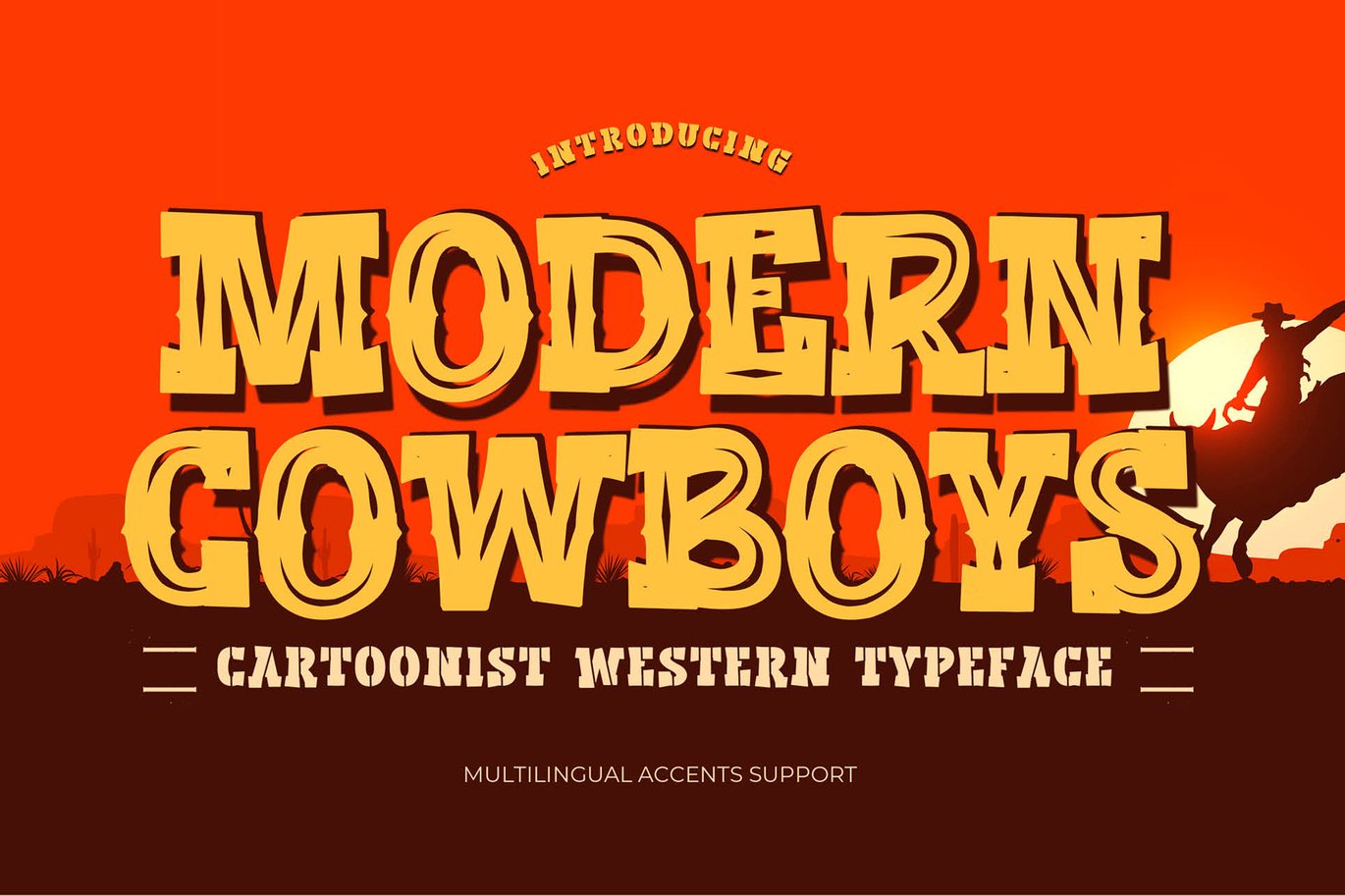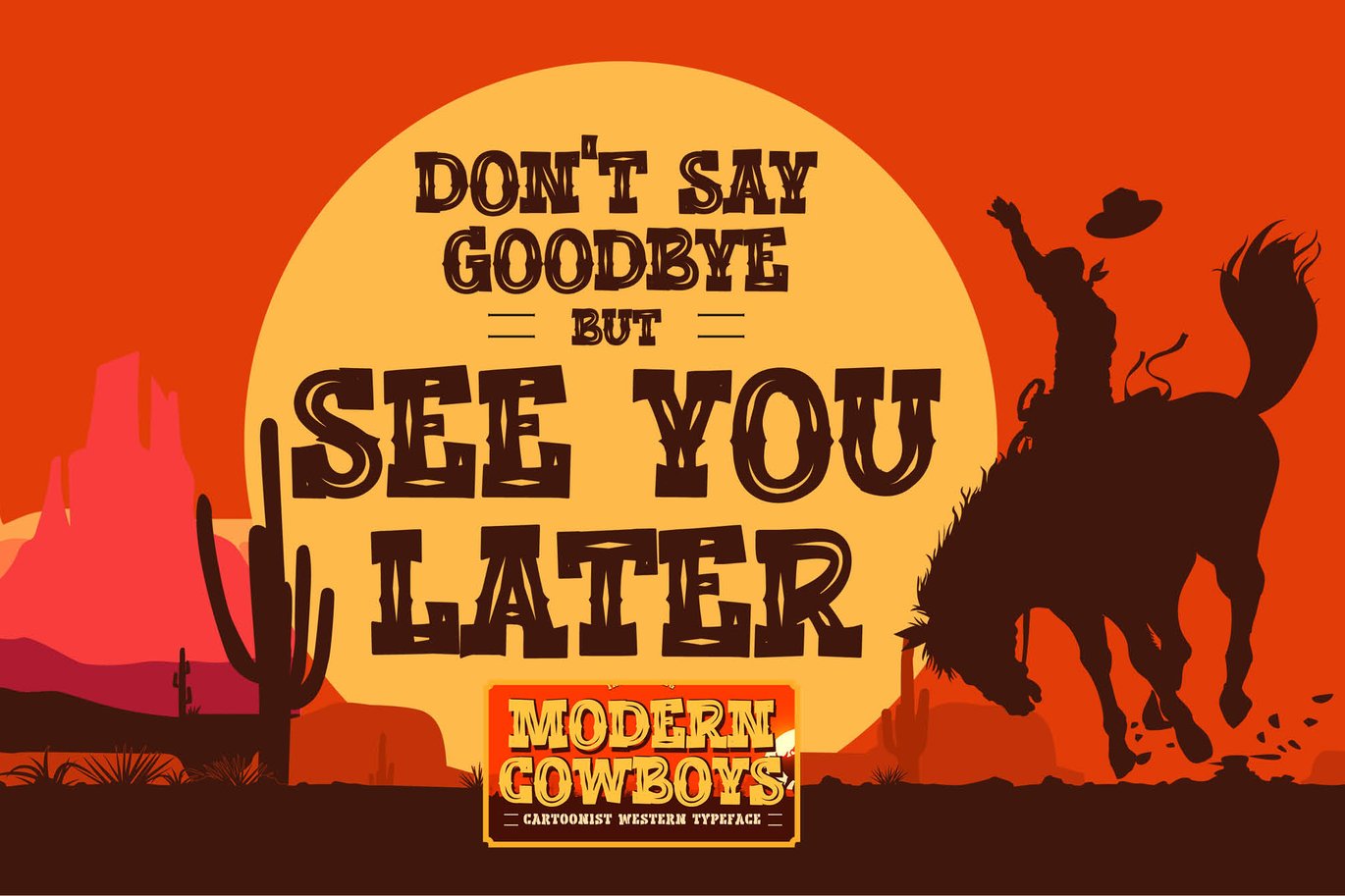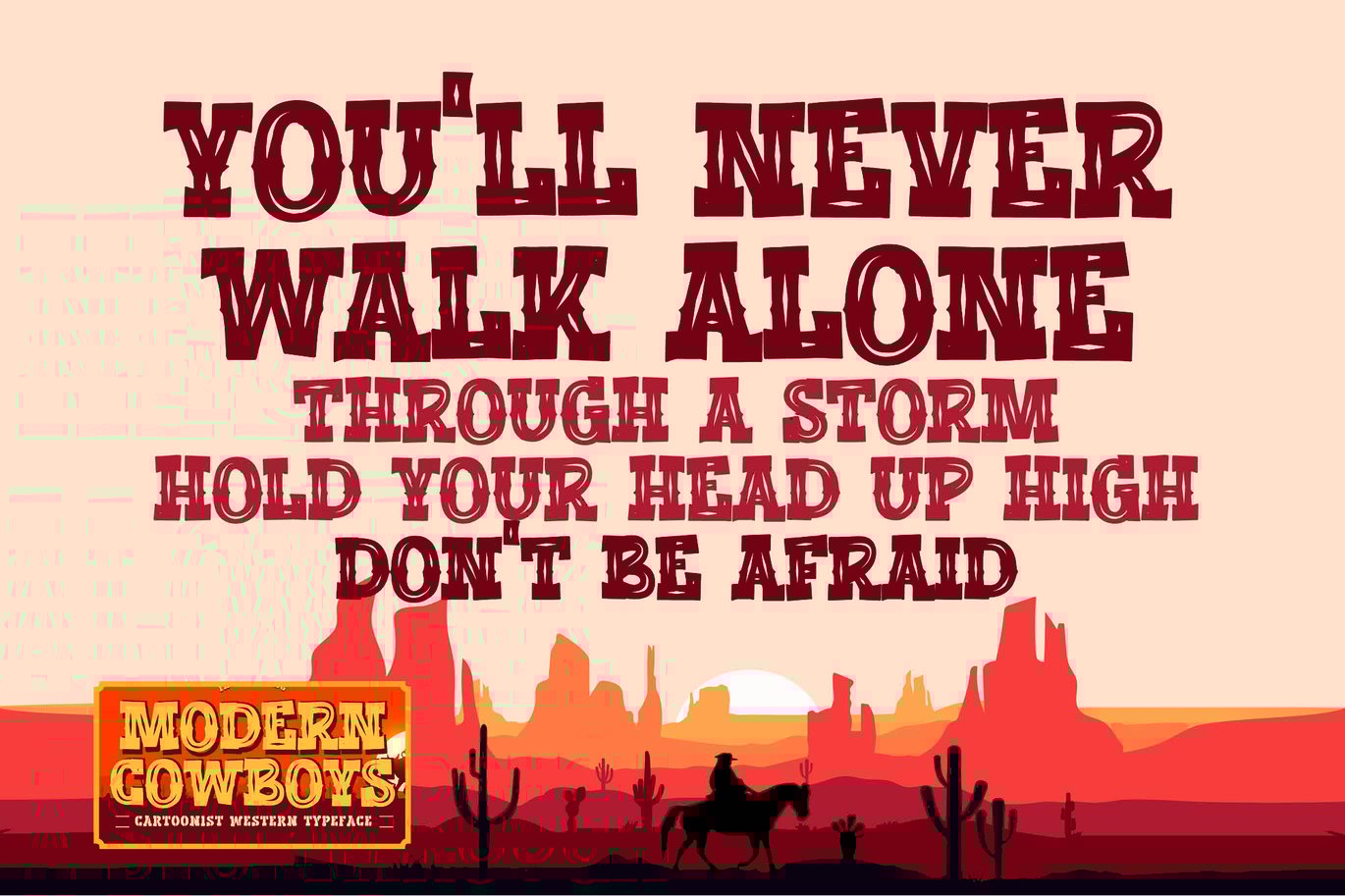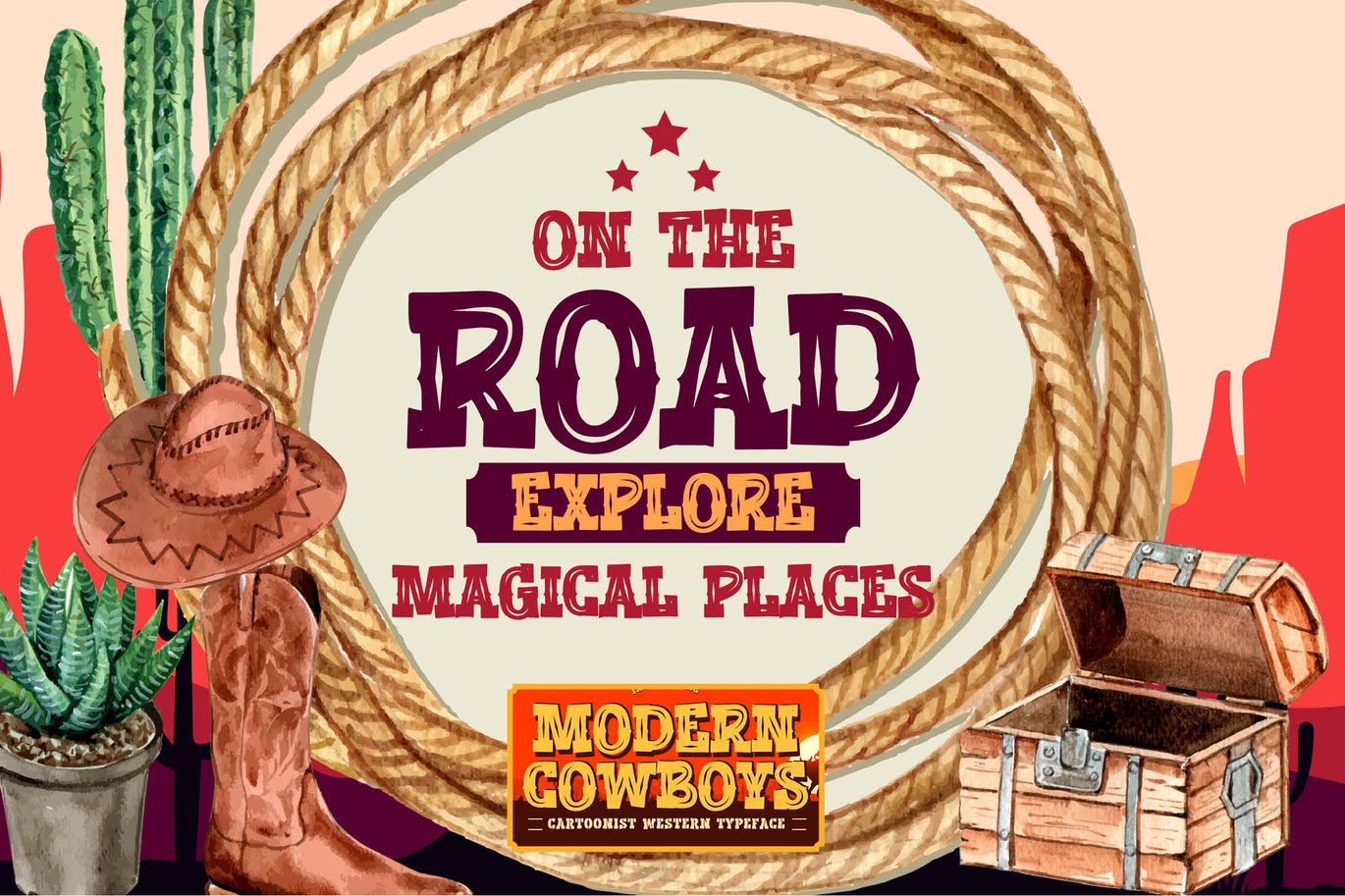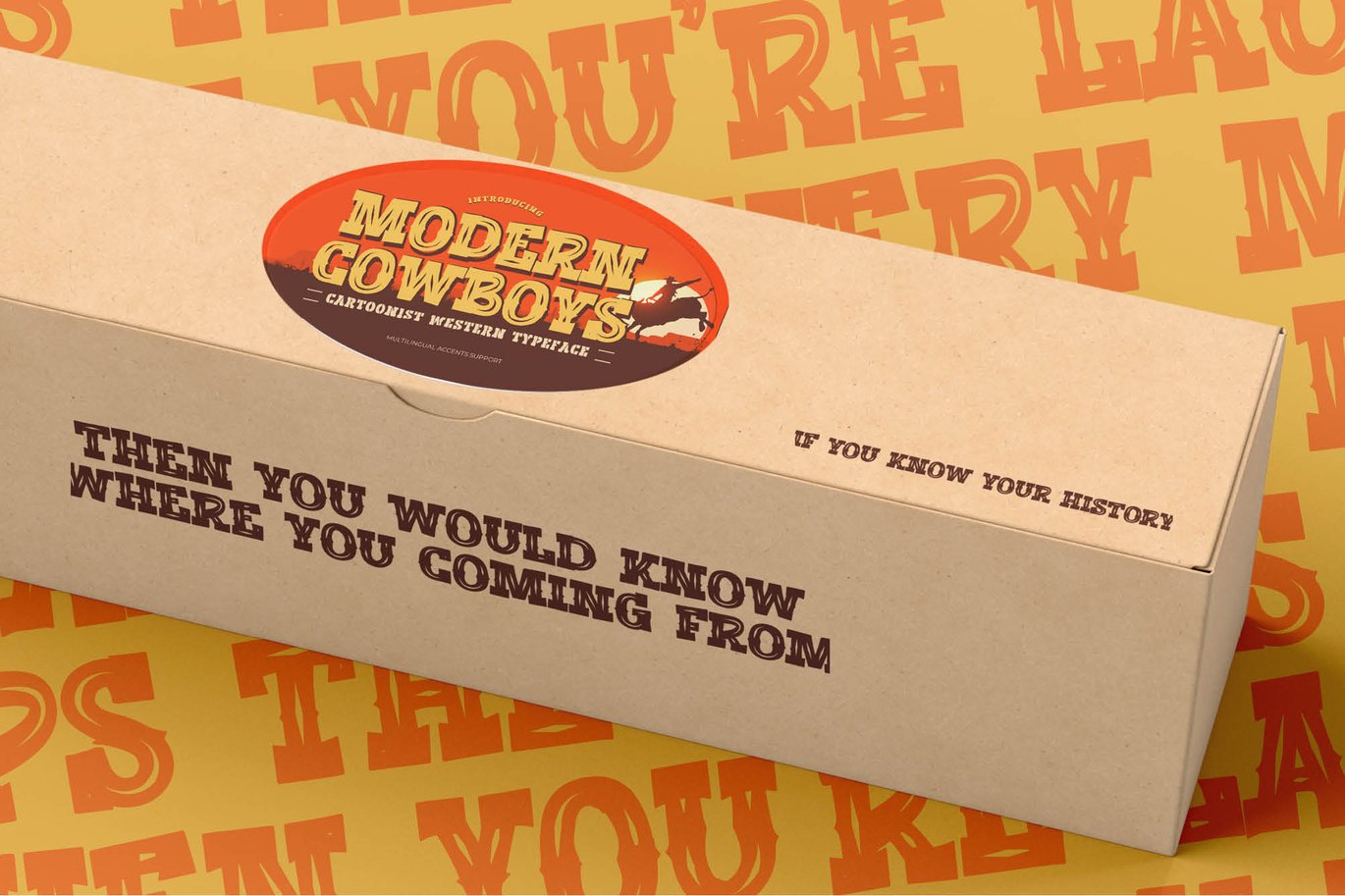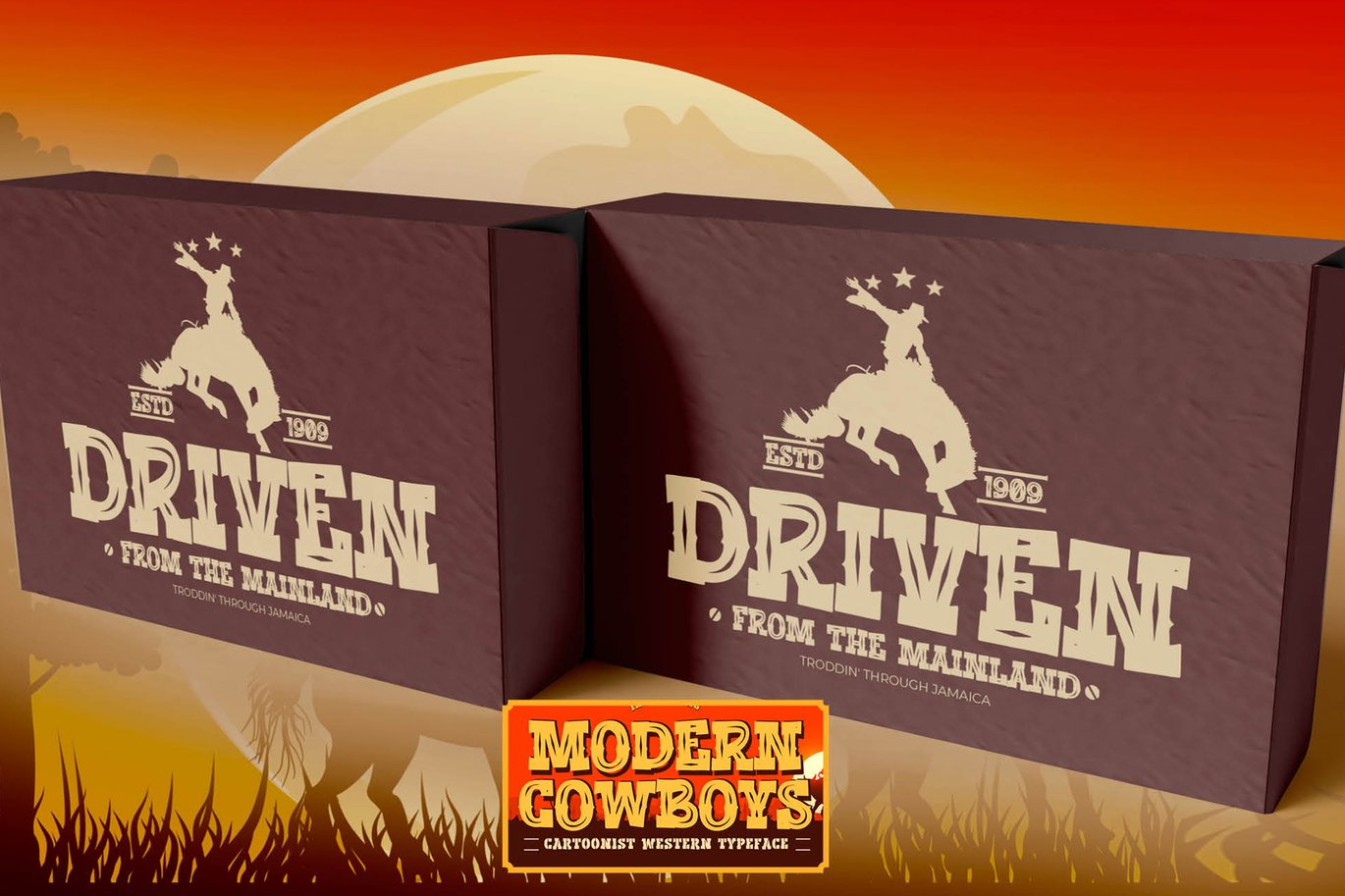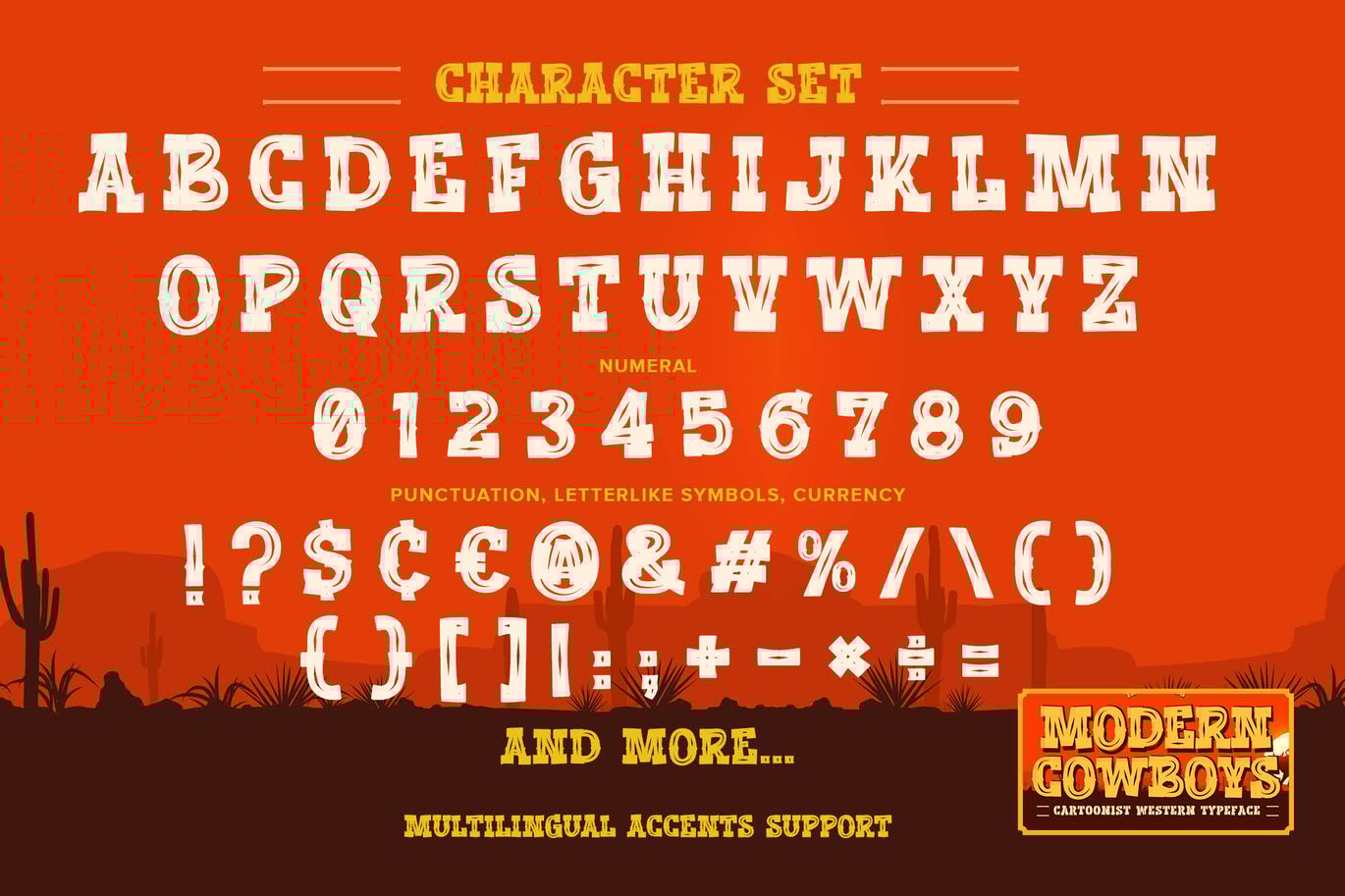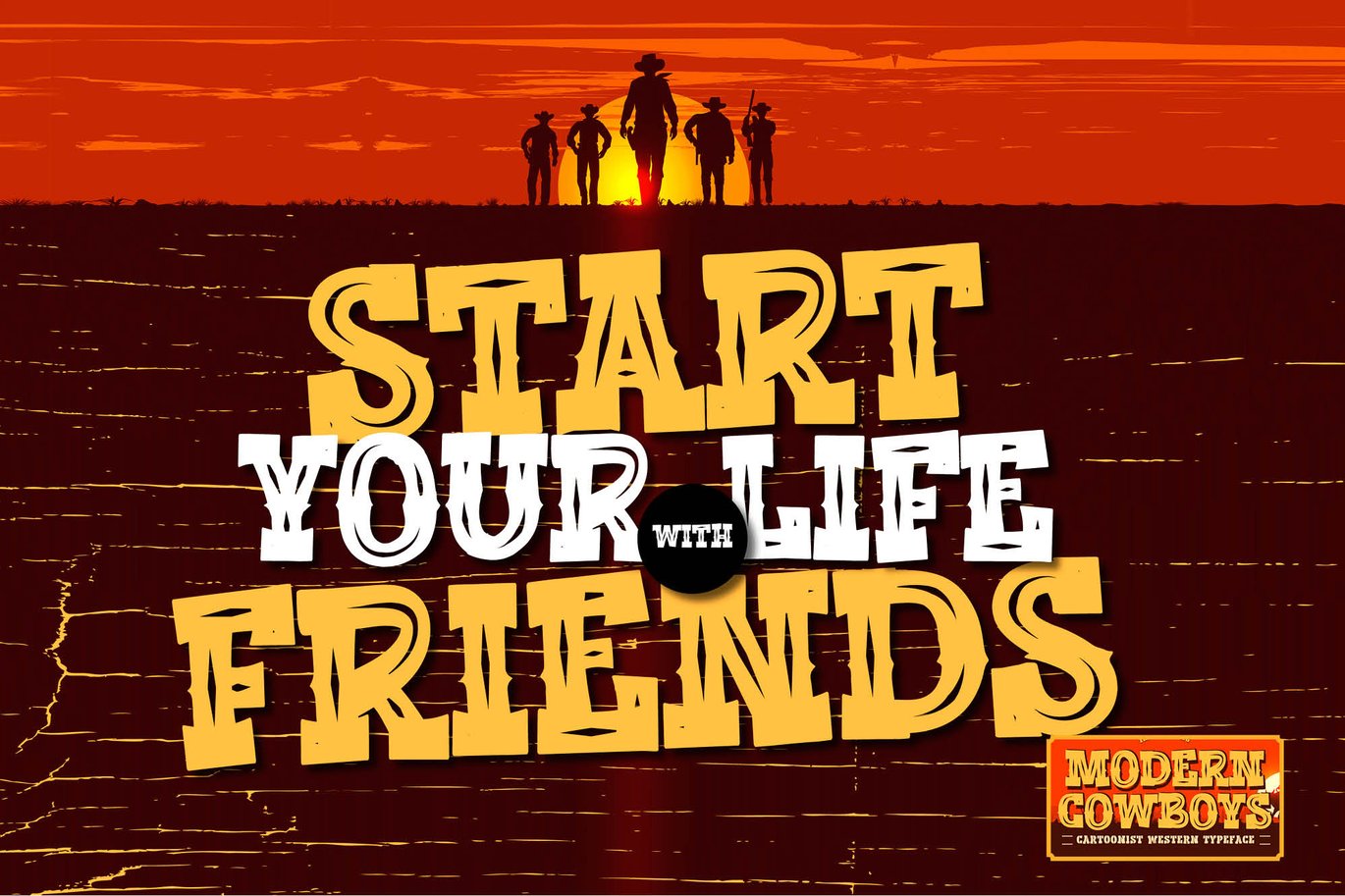
Modern Cowboys – Cartoonist Western Typeface
Here comes a New font, Modern Cowboys is a Cartoonist Western Typeface Vintage Serif Display font this is strong vintage Typeface western-looking display font.
This font is great for your next creative project such as logos, printed quotes, invitations, cards, product packaging, headers, Logotype, Letterhead, Poster, Label, and etc.
That is why Modern Cowboys has Stylish and unique characteristic more natural look to your text with a more modern look to your text.